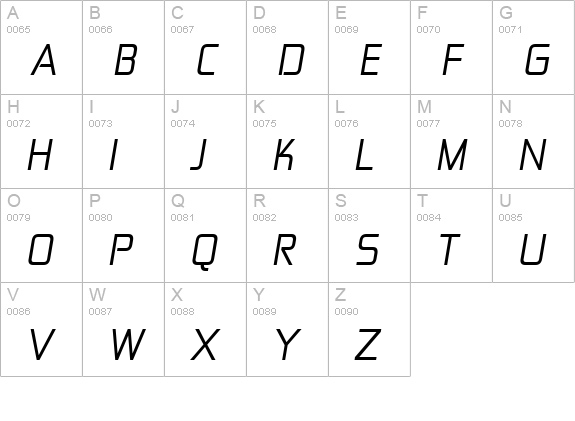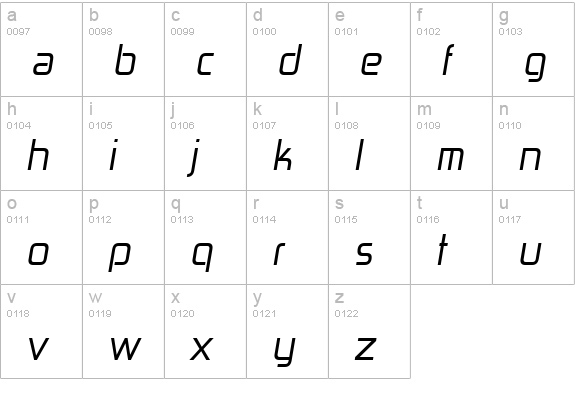
Zekton Rg Italic Font Details
Zekton Rg Italic is a distinctive, italic variant in the Zekton typeface family \xE2\x80\x94 well suited to design and typography projects.
Zekton Rg Italic font is a sleek and modern typeface that exudes sophistication and style. Its italicized design adds a touch of elegance to any project, making it perfect for branding, marketing materials, and more. This versatile font is ideal for adding a contemporary flair to your designs while maintaining readability and professionalism. The best part? Zekton Rg Italic font is available for free download at FontsMarket.com. You can easily access this high-quality font and elevate your creative projects without breaking the bank. Whether you're a seasoned designer or just starting out, Zekton Rg Italic font is a valuable addition to your font collection. Download it today and bring your designs to the next level!